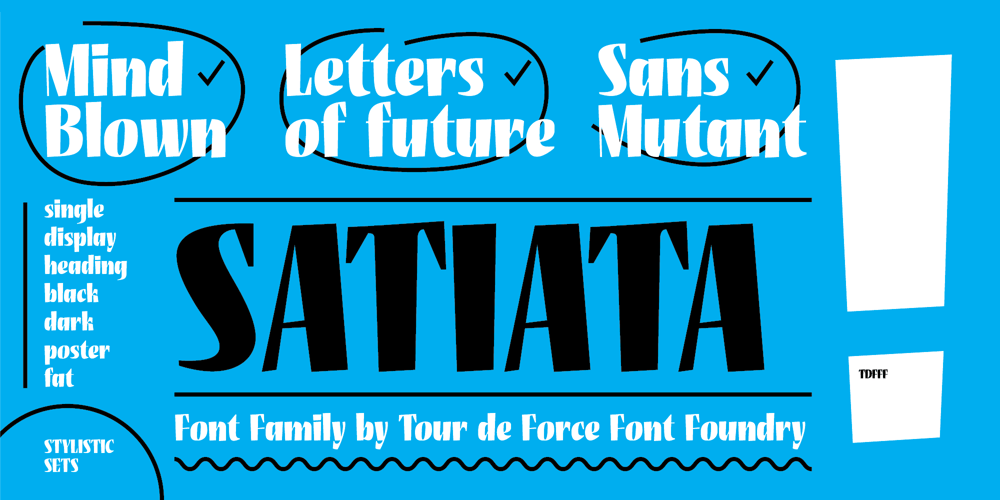
Satiata
Satiata font
Satiata Font Family was designed by Dusan Jelesijevic and published by Tour De Force. Satiata contains 1 styles and family package options. Satiata is fat, single, display font that’s full of charm. Tightly spaced, Satiata is designed with condensed proportions which place the font in versatile position – it can be used for posters, titles, outdoor graphics, but equally the same for package, branding or websites. It is recognizable enough to lead every project.Satiata contains extended Latin character map with two stylistic sets and small pack of ligatures.